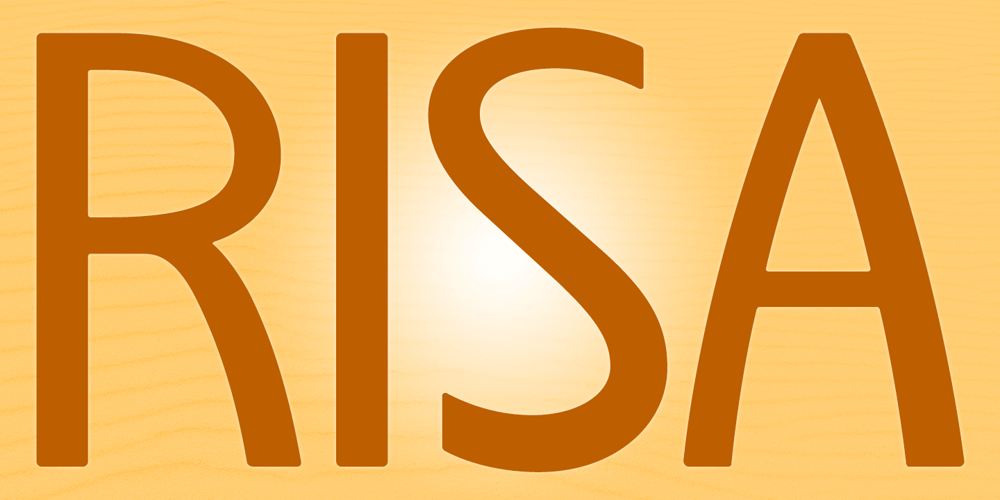
Risa Font Family was designed by Keith Bates and published by K-Type. Risa contains 8 styles and family package options. Risa is an easygoing sans serif for display and text. With a dash of deco and a soupçon of sixties, gentle curves grace diagonal strokes bestowing a sensual tenderness that is further enhanced by subtle soft cornering throughout and a swollen fullness at the baseline, bottom-heaviness that helps make Risa highly legible.